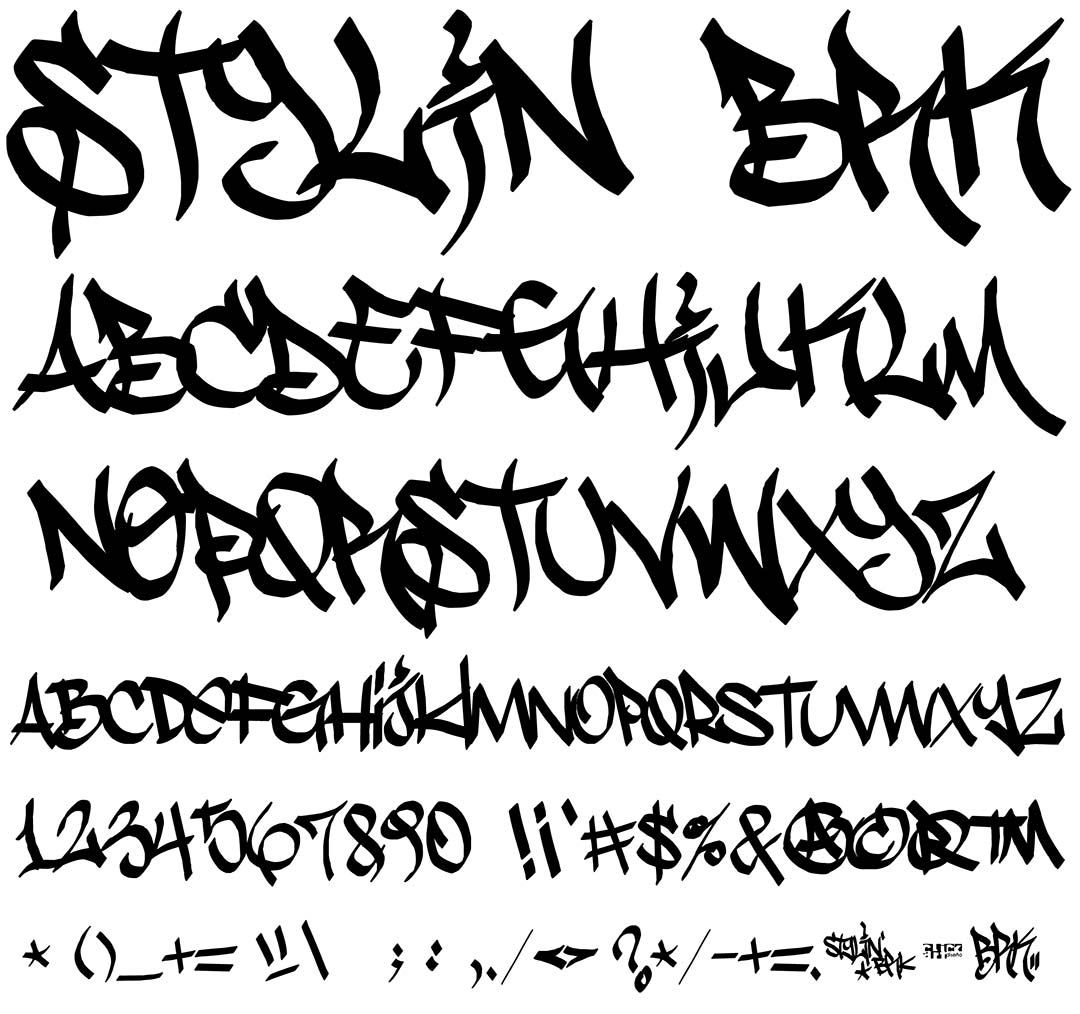
Stylin BRK
Stylin BRK Graffiti Alphabet
Stylin BRK Graffiti Font Family
Stylin BRK is a wild tag style as written with a thin chisel-tip marker. The font was created digitally as many tag fonts are so the paths are pretty clean. Two (all caps) alphabets are included along with numbers, symbols & punctuation.